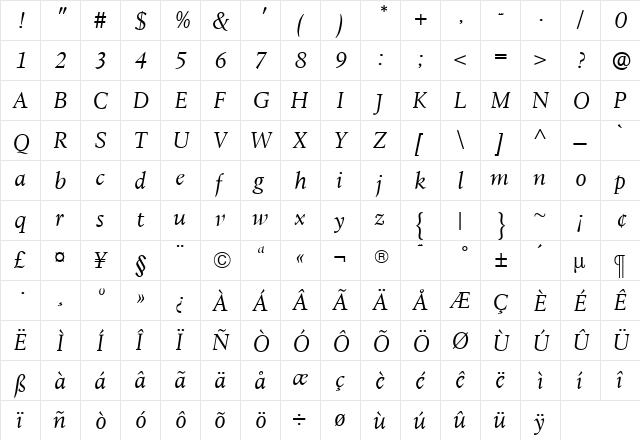
LeightonLightItalic Roman Font Preview
Design Context for LeightonLightItalic Typeface
LeightonLightItalic offers clean, dependable letterforms without strong stylistic allegiance, making it a practical choice for designers who need flexibility. The dynamic lean of this cut emphasises speed and emphasis in any layout. Its slender proportions lend an understated elegance to any composition.
Pro Tip: Try LeightonLightItalic for annotation and caption copy alongside an upright companion — the contrast in angle creates a dynamic but ordered typographic system.